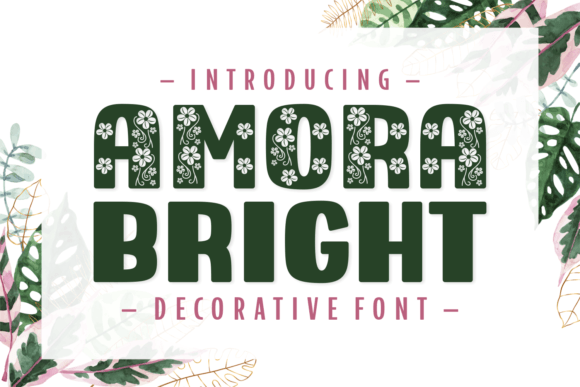
Introducing Amora Bright Font: A Burst of Spring Radiance for Your Creative Endeavors
In a world teeming with digital designs, the allure of a captivating font can transform your creative visions into stunning realities. Amora Bright Font, a breathtaking creation from Creative Fabrica Fonts, beckons you to embrace the beauty of spring, infusing your projects with a vibrant charm that captivates and enthralls.
With its thick, enchanting characters and delicate floral adornments, Amora Bright embodies the essence of springtime's awakening. Its whimsical nature lends itself effortlessly to a myriad of projects, beckoning you to explore your creativity and let your imagination run wild.
Picture the allure of your florist advertising materials, adorned with Amora Bright's elegant strokes, attracting customers with its enchanting aura. Envision the joy of crafting handmade cards, each one a unique expression of your heartfelt sentiments, adorned with Amora Bright's delicate embrace. Let your gift-making endeavors blossom with Amora Bright's intricate embellishments, transforming ordinary gifts into extraordinary keepsakes.
Amora Bright's versatility extends beyond seasonal greetings and personal expressions. Its captivating presence lends itself seamlessly to branding and marketing materials, adding a touch of sophistication and allure to your designs. Let your business bloom with Amora Bright's enchanting aura, captivating your audience with its timeless beauty.
Embrace the transformative power of Amora Bright Font, and embark on a creative journey where your imagination knows no bounds. Its vibrant energy awaits your touch, promising to infuse your projects with a touch of spring's magic.